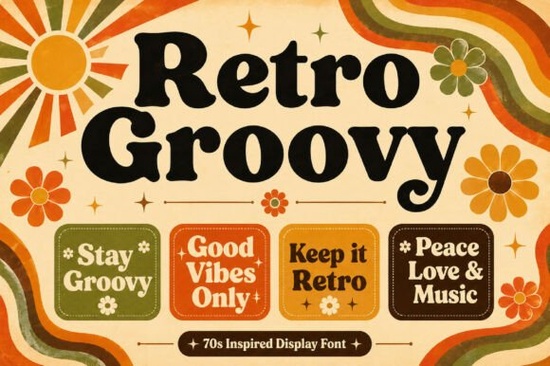
If you're working on a project that calls for a bold, nostalgic feel, the Retro Groovy Font is a strong starting point. This vintage display typeface channels the warmth and character of 60s and 70s typography. Whether you're designing a logo, poster, or product packaging, its thick curves and funky letterforms deliver unmistakable retro personality.
What Makes a Groovy Retro Font Stand Out?
Retro Groovy draws its charm from the groovy typography that defined a classic era of design. Think bold, rounded letters with soft edges and a slightly playful stance. It's not overly decorative it strikes a balance between being eye-catching and readable.
Here's what you get with this typeface:
- Bold display letterforms that hold their own at large sizes
- Soft, rounded edges that feel warm and approachable
- Full character set including uppercase, lowercase, numbers, and punctuation
- Versatile styling that works for both digital and print projects
This kind of typeface works well when you need a single font to carry the visual weight of a design no extra embellishments required.
Who Is This Retro Font Best For?
Retro Groovy is a practical choice for a wide range of creatives:
- Print-on-demand sellers who need bold, clean typography for t-shirts, mugs, and tote bags
- Small business owners building a brand identity with a vintage or throwback feel
- Poster and album designers looking for authentic retro aesthetics
- Crafters and hobbyists making greeting cards, stickers, or wall art
- Social media managers creating scroll-stopping graphics with personality
If your audience responds to warm, nostalgic visuals, a groovy display font like this one can do a lot of the heavy lifting.
Where Does This Font Work Best?
Retro Groovy shines in projects where the typography needs to feel a certain way not just communicate information. A few real-world uses:
- Logos for cafés, barbershops, vintage stores, or music labels
- Event posters for festivals, markets, or themed parties
- Packaging design for specialty foods, craft beer, or handmade goods
- Album covers and band merchandise
- Apparel graphics especially for retro-themed POD shops
- Social media posts and story templates
The font's bold weight means it stays legible even on textured backgrounds or at smaller display sizes. That makes it especially useful for packaging and apparel mockups where readability matters.
How Does Retro Groovy Compare to Other Display Fonts?
There are plenty of display fonts out there, but not all of them nail the retro vibe without feeling forced. Retro Groovy keeps things authentic with letterforms that feel like they belong on a vintage concert poster not a modern approximation.
You could even pair Retro Groovy with a more restrained body font and a quirky accent like a luck-themed display typeface to create visual contrast in multi-font layouts.
Tips for Getting the Most Out of Retro Groovy
A few practical suggestions for working with this typeface:
- Use it at larger sizes. This is a display font it's designed to be seen. Avoid using it for body text or long paragraphs.
- Pair it with a clean sans-serif. Fonts like Montserrat or Open Sans complement Retro Groovy without competing for attention.
- Experiment with color palettes. Warm earth tones, mustard yellows, burnt oranges, and olive greens all reinforce the retro aesthetic.
- Test it on mockups first. Before committing to a final design, try the font on your actual product a t-shirt mockup, a label template, or a social media frame.